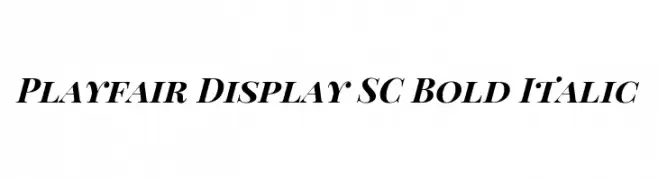
A bold, italic serif font with high contrast and elegant styling.
An elegant, italicized serif font with high contrast and small caps.
Elegant serif typeface with high contrast and classic appeal.
A classic serif font with high contrast and elegant, sharp serifs.
A sophisticated serif typeface with high contrast and elegant serifs.
Elegant serif font with high contrast and italic style.
A classic serif font with high contrast and elegant serifs.
An elegant serif typeface with high contrast and a classic italic style.